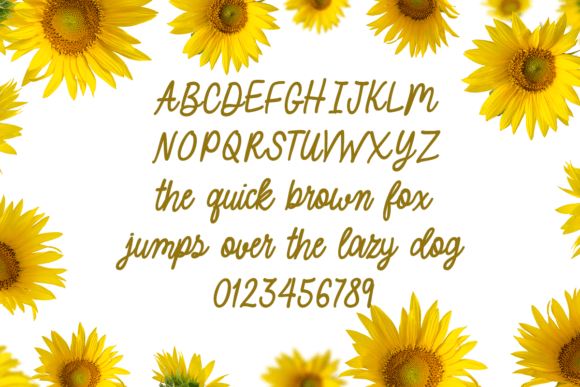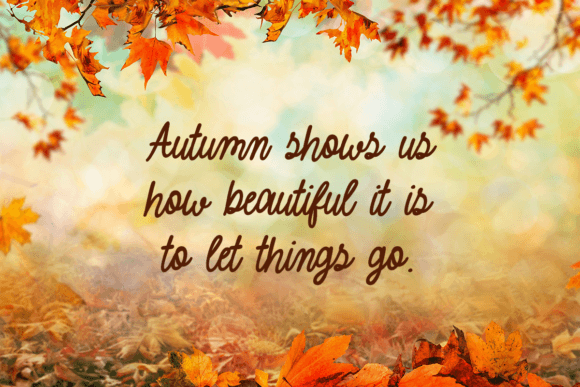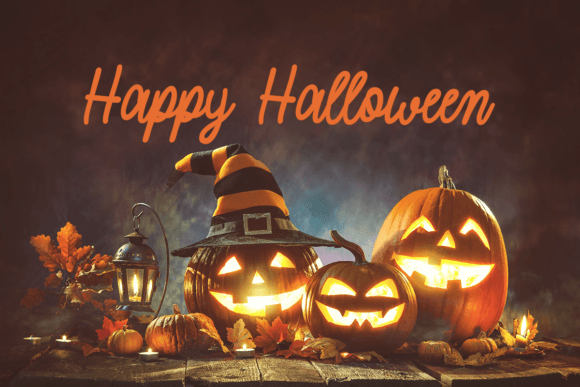
The Perfect Font for a Whimsical Summer Night
There’s something magical about a warm summer evening, with the stars shining bright and a gentle breeze whispering through the trees. As a designer, I often find myself lost in the creative process, searching for the perfect font to capture the essence of the moment. It’s in these moments of serendipity that I stumbled upon the enchanting August Vibes Font.
This beautiful and elegant font is more than just a collection of letters – it’s an experience. With its unique and stylish lettering, the August Vibes Font radiates a warm and welcoming feeling, perfect for adding a touch of sophistication and charm to any project. Whether you’re designing a logo, creating a poster, or designing a website, this font is a valuable asset that will elevate your work to new heights.
August Vibes Font Key Features
- Font Family: August Vibes Font
- Unique Characteristics: Hand-drawn, cursive, and script font with a relaxed and casual feel, perfect for creative projects and branding
August Vibes Font Review
I recently had the chance to work with the August Vibes Font, and I’m excited to share my thoughts with you.
✨ The August Vibes Font has a unique, laid-back feel that’s perfect for capturing the essence of a warm summer evening. It’s a great choice for branding and marketing materials that want to evoke a sense of relaxation and leisure.
✨ The font is highly customizable, allowing you to adjust the weight, size, and color to suit your design needs. This makes it a great option for logos, headings, and body text.
✨ The August Vibes Font is highly legible, even at small sizes, making it a great choice for digital applications where text needs to be readable on a variety of devices.
⚠️ One of the main limitations of the August Vibes Font is its limited language support. It’s primarily designed for Latin-based languages, which may limit its use for projects requiring other languages.
⚠️ The font may not be suitable for formal or corporate branding, as its relaxed feel may come across as unprofessional in certain contexts.
⚠️ Some users may find the August Vibes Font too casual or cursive, which may not be to everyone’s taste.
The August Vibes Font is a great choice for designers looking to add a touch of relaxation and leisure to their projects. While it may have some limitations, its unique feel and high customizability make it a great option for the right projects.